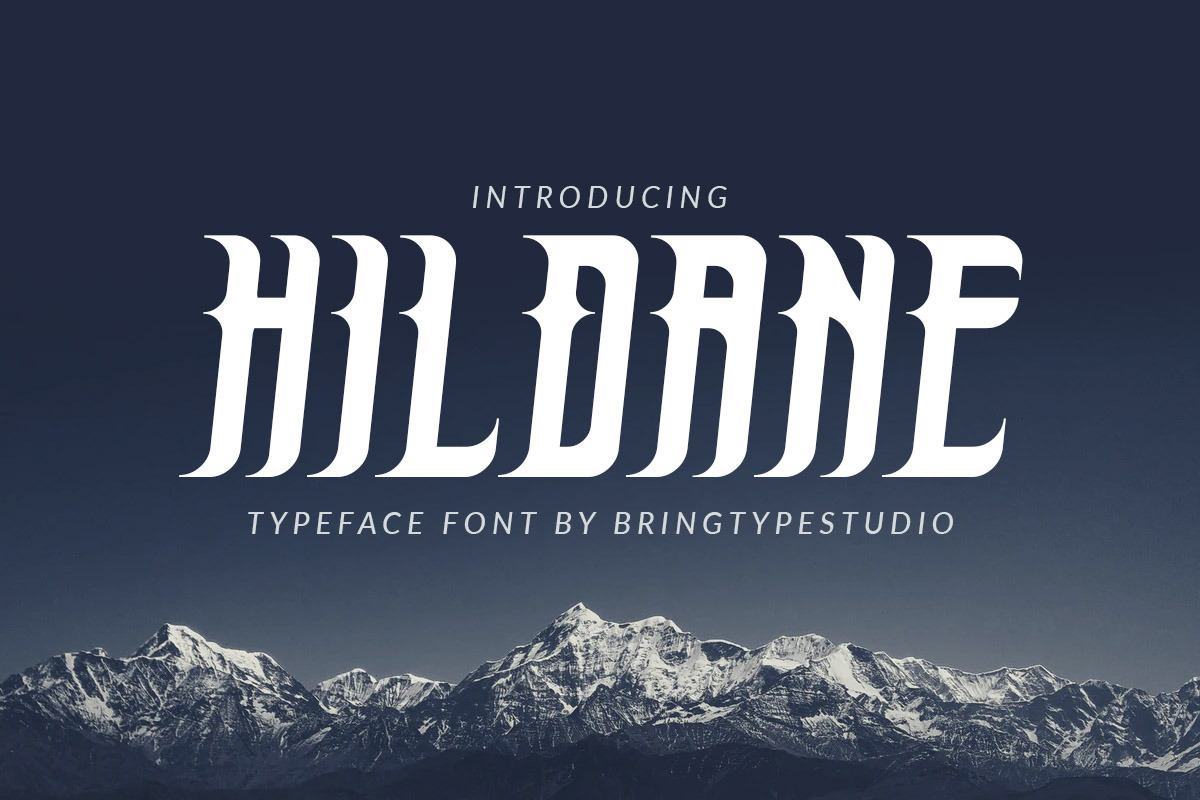
Please note, to use this font for commercial purposes, you must purchase the full version. HILDANE is a modern and elegant font that brings a sophisticated touch to any design. With its clean, sleek lines and versatile style, this font is perfect for logos, branding, websites, invitations, and more. Whether you're creating a minimalist design or a stylish brand identity, HILDANE offers the perfect balance of elegance and readability. Test it out and enjoy free download access for personal use. Experience the refined beauty of HILDANE Font Free Download before purchasing the commercial license. Elevate your design projects with the timeless style of HILDANE.